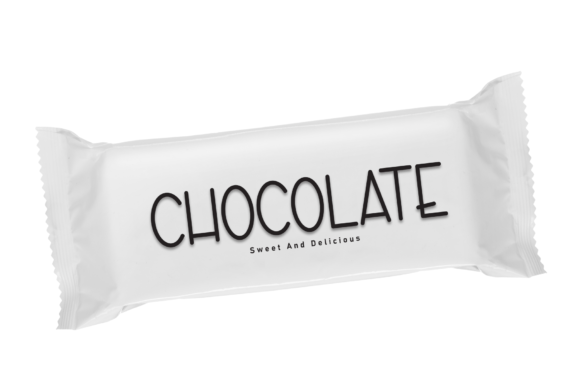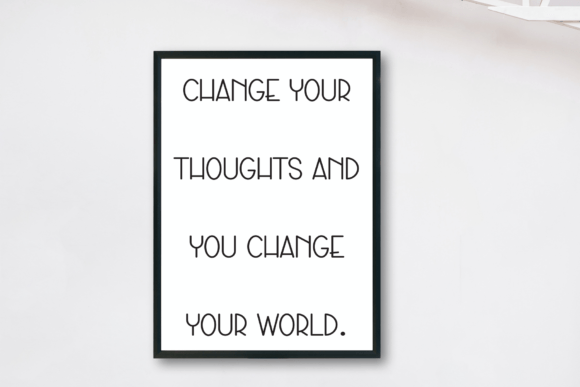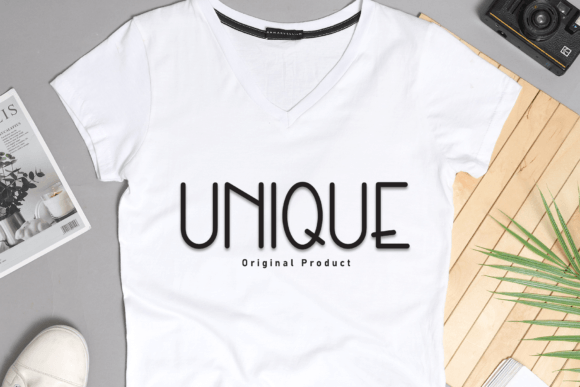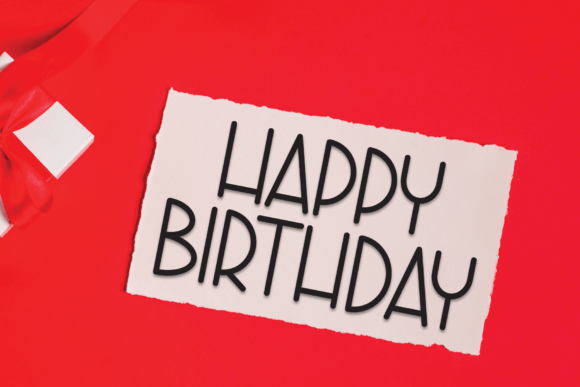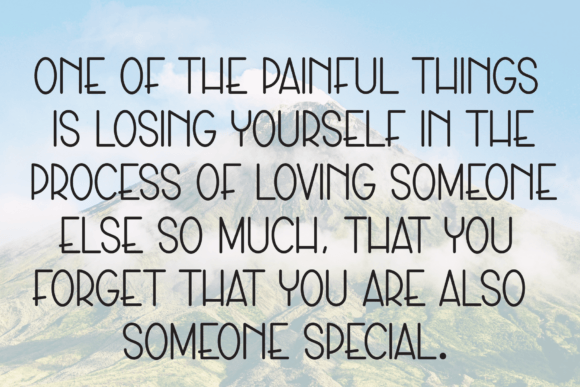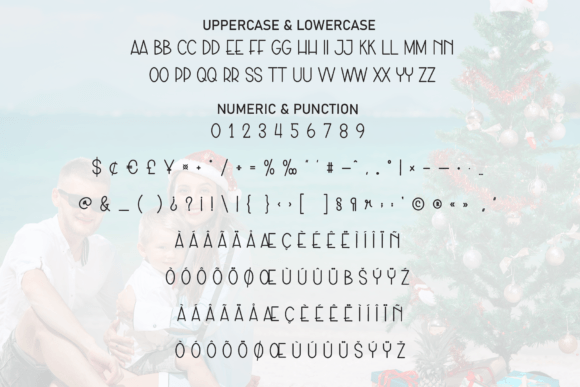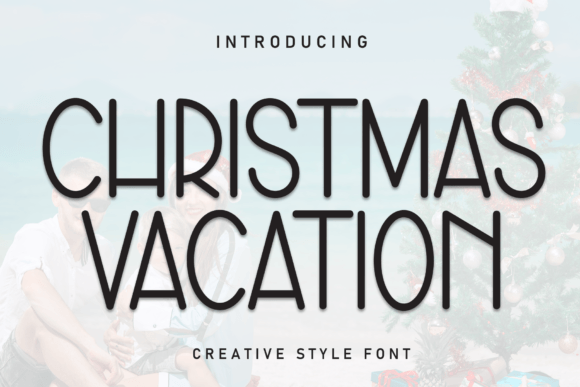
Christmas Vacation Font: The Perfect Addition to Your Design Projects
Are you looking for a font that captures the essence of a relaxed and friendly vibe? Look no further than the Christmas Vacation Font. This casual handwritten font is perfect for designers and crafters who want to add a touch of warmth and authenticity to their projects. In this article, we’ll dive into the details of the Christmas Vacation Font, its features, and how you can use it to elevate your designs.
What is Christmas Vacation Font?
Christmas Vacation Font is a beautiful, handwritten font that exudes a natural and effortless charm. Its flowing strokes and relaxed style make it perfect for a variety of design projects, from personal creations to social media graphics and invitations. The font’s friendly and approachable vibe is sure to capture the attention of your audience and leave a lasting impression.
Key Features of Christmas Vacation Font
- Casual and Handwritten: The Christmas Vacation Font boasts a casual, handwritten style that adds a personal touch to any design.
- Natural and Flowing Strokes: The font’s natural, flowing strokes give it a relaxed and friendly vibe that’s perfect for a variety of projects.
- Effortless and Charming: The font’s effortless style adds a charming touch to any design, making it perfect for designers and crafters who want to create visually appealing projects.
- Warmth and Authenticity: The Christmas Vacation Font brings a sense of warmth and authenticity to any design, making it perfect for personal projects, social media graphics, and invitations.
Uses of Christmas Vacation Font
The Christmas Vacation Font is versatile and can be used for a variety of design projects, including:
- Personal Projects: Use the Christmas Vacation Font to create personalized gifts, such as handmade cards, gift tags, and decorations.
- Social Media Graphics: Add a touch of warmth and authenticity to your social media graphics, such as Facebook posts, Instagram stories, and Twitter headers.
- Invitations: Use the Christmas Vacation Font to create beautiful and inviting invitations for parties, weddings, and other special events.
- Crafting Projects: The font is perfect for crafters who want to add a personal touch to their projects, such as scrapbooking, journaling, and paper crafting.
Tips for Using Christmas Vacation Font
Here are some tips for using the Christmas Vacation Font effectively in your design projects:
- Pair it with Other Fonts: Experiment with pairing the Christmas Vacation Font with other fonts to create a unique and visually appealing combination.
- Use it for Headings and Titles: The font’s bold and playful style makes it perfect for headings and titles.
In conclusion, the Christmas Vacation Font is a beautiful and versatile font that’s perfect for designers and crafters who want to add a touch of warmth and authenticity to their projects. Its natural, flowing strokes and relaxed style make it perfect for a variety of design projects, from personal creations to social media graphics and invitations. With its effortless charm and friendly vibe, the Christmas Vacation Font is sure to become a staple in your design toolkit.